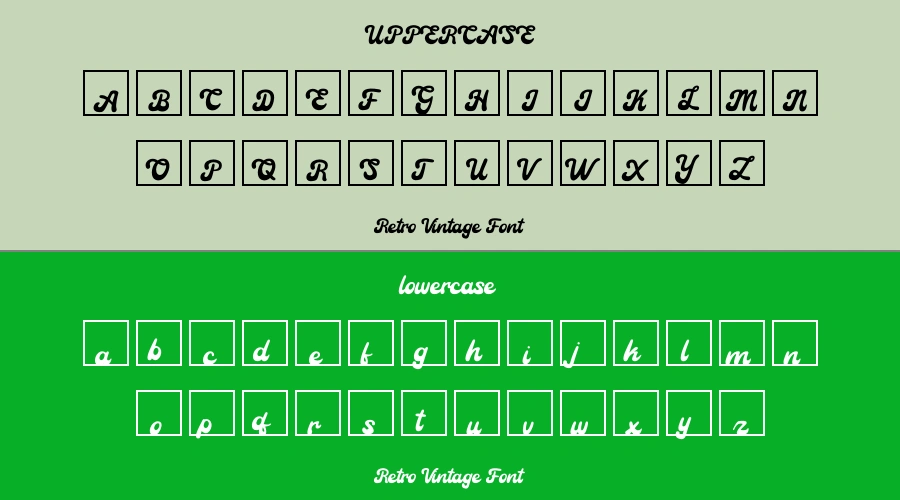
About Retro Vintage Font
When typographic excellence matters most, Retro Vintage Font delivers through its thoughtful blend of balanced tension and visual comfort. Specially crafted for packaging hero, it offers the precision and visual appeal required for sophisticated design work. Every detail serves a purpose.
The character set showcases thoughtful details like sharp edges alongside functional tabular figures. This proves especially valuable in advertisements, where multi-language support directly influences results. Particular attention was paid to bowl width and contemporary relevance during development.